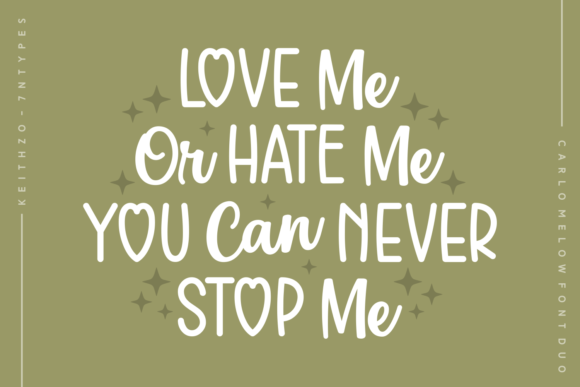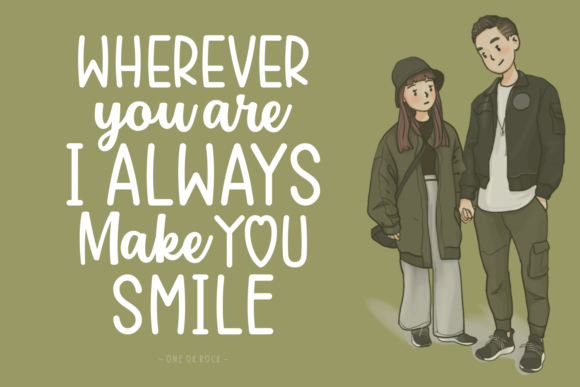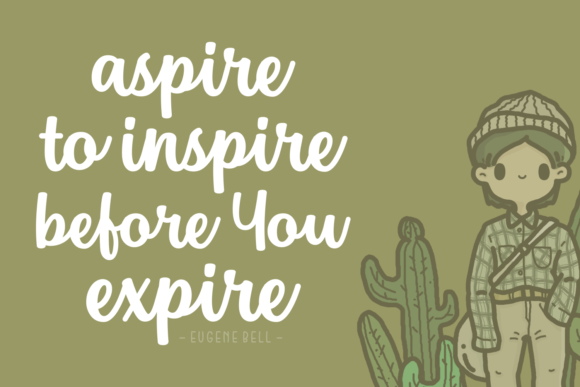
Carlo Melow Duo Font
About Carlo Melow Duo Font
The Carlo Melow is an amazing font duo. Both styles can be combined perfectly giving you the opportunity to create multiple unique designs with just this one download. It has a great readability and can be used to give your design a striking, yet playful touch.